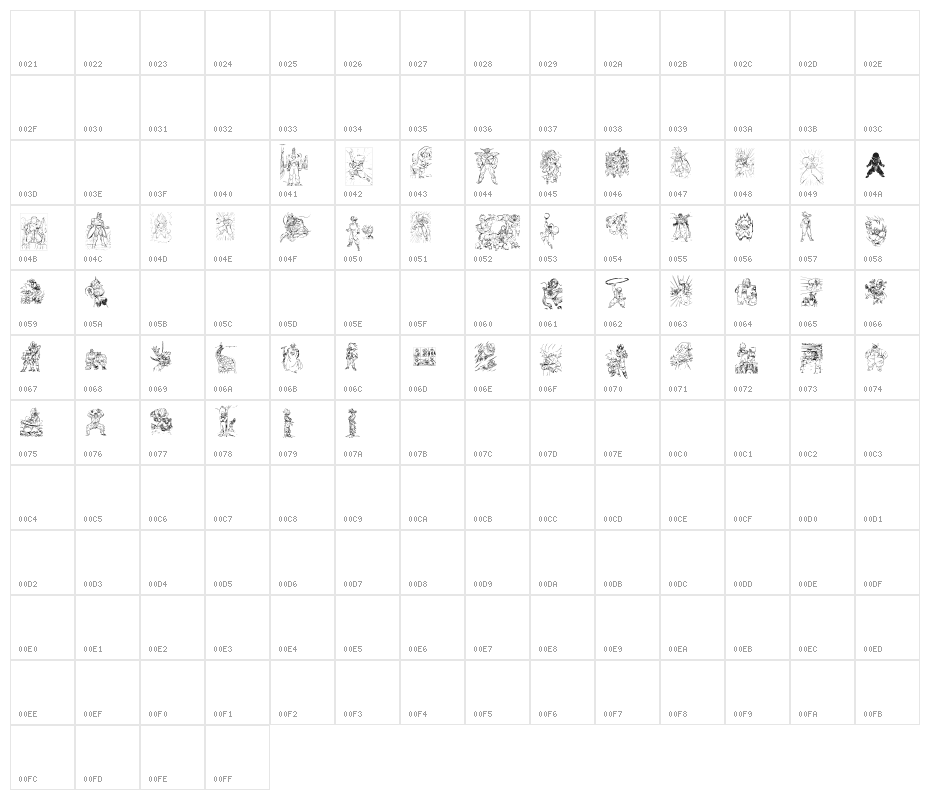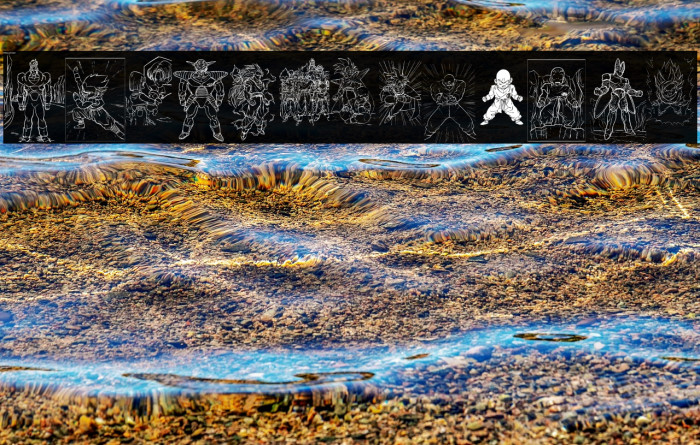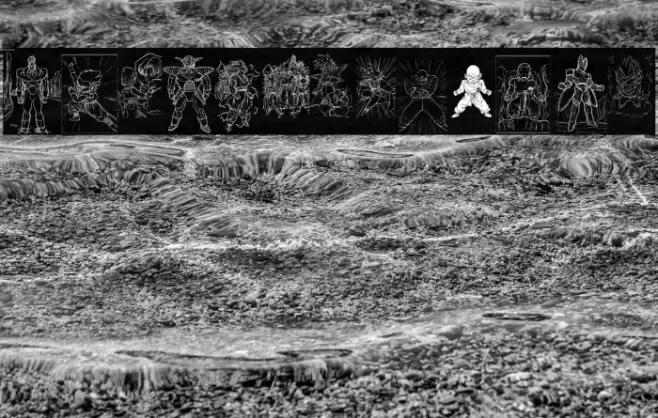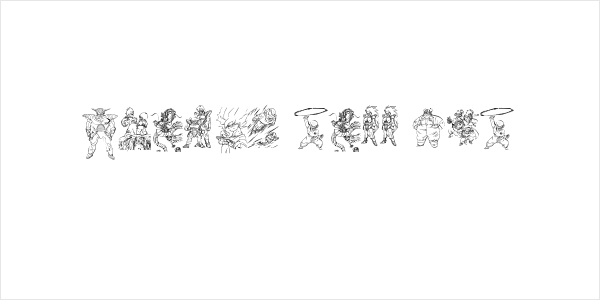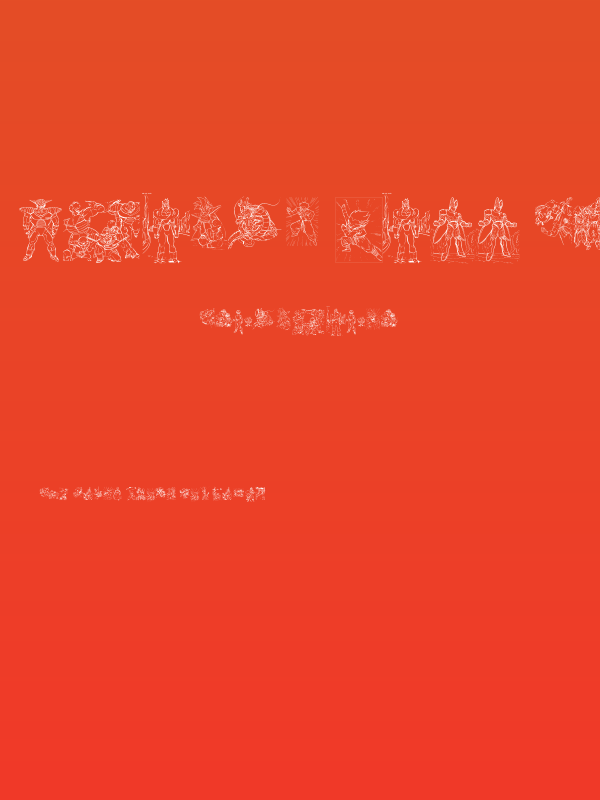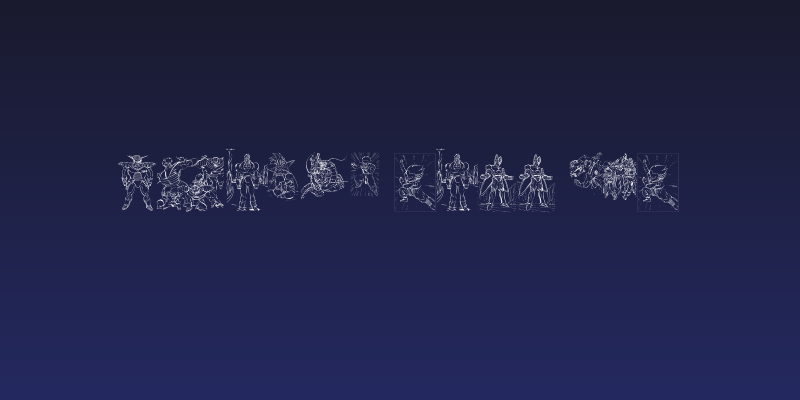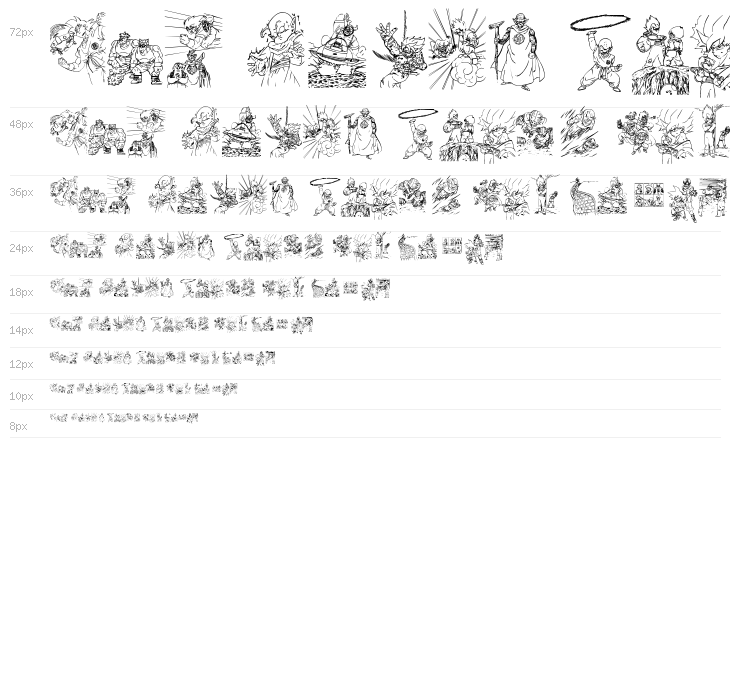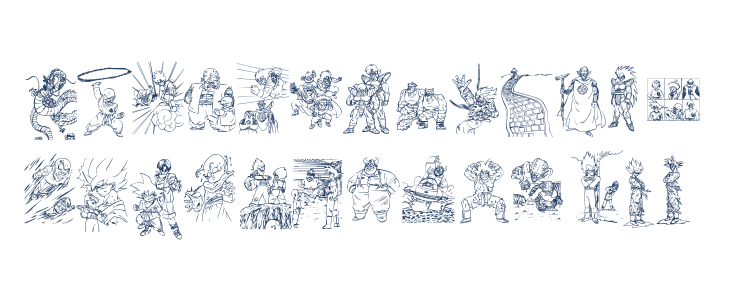
Dragon ball tfb Font
Dragon ball tfb Description
Highly detailed, hand-drawn illustrations of various characters and scenes, each glyph representing a unique figure or moment with dynamic poses and expressive line work. The style is reminiscent of comic or manga art, with intricate outlines and energetic compositions.
| Overall Style | Decorative, Comic, Thematic |
| Use Case | Logos, Headlines, Posters, Themed Graphics |
| Proposed Projects | Fan art posters, themed party invitations, comic book titles, novelty merchandise, event flyers, collectibles packaging. |